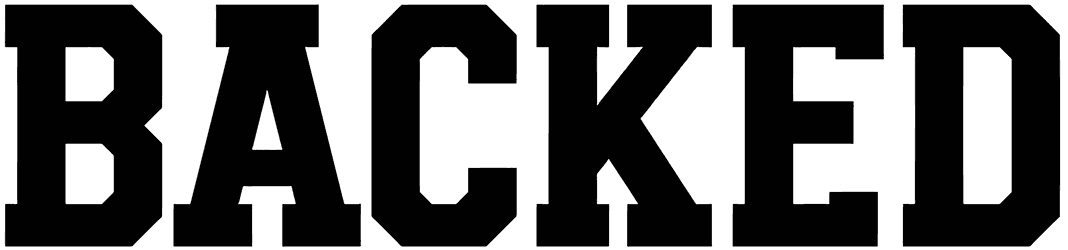
Backed Font
Isn’t it just awesome when you have such a great football font at your service to nail all your future sports designs for you? The blocky letters of Backed won’t let the audience get distracted from your text for even a second, especially since it’s only made of capital characters.
Unfortunately, the numbers aren’t included in this font file, but this powerful jersey font can always assist you in designing college sports team uniforms, sports event banners, and so on.